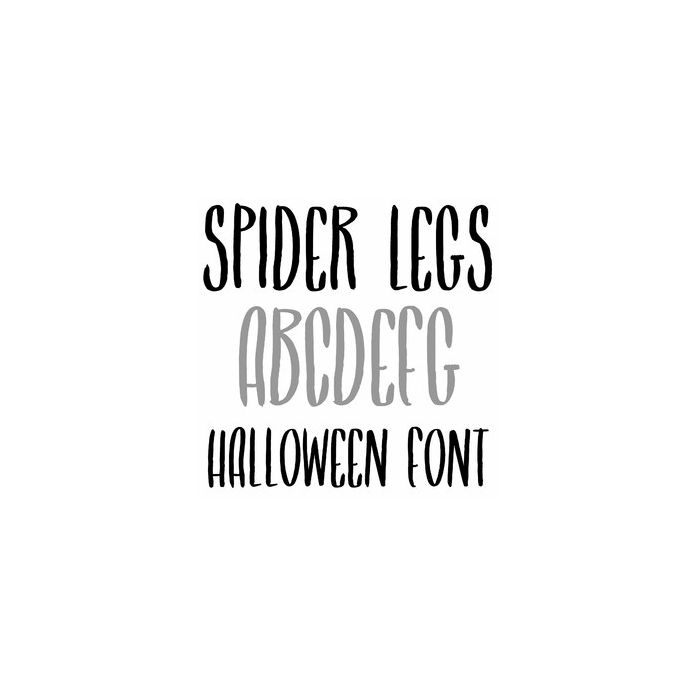
A tall and creepy Halloween font for holiday crafts, labels, signs, cards, projects, planners, monograms, and personalization projects. Includes all caps, numbers, and punctuation.